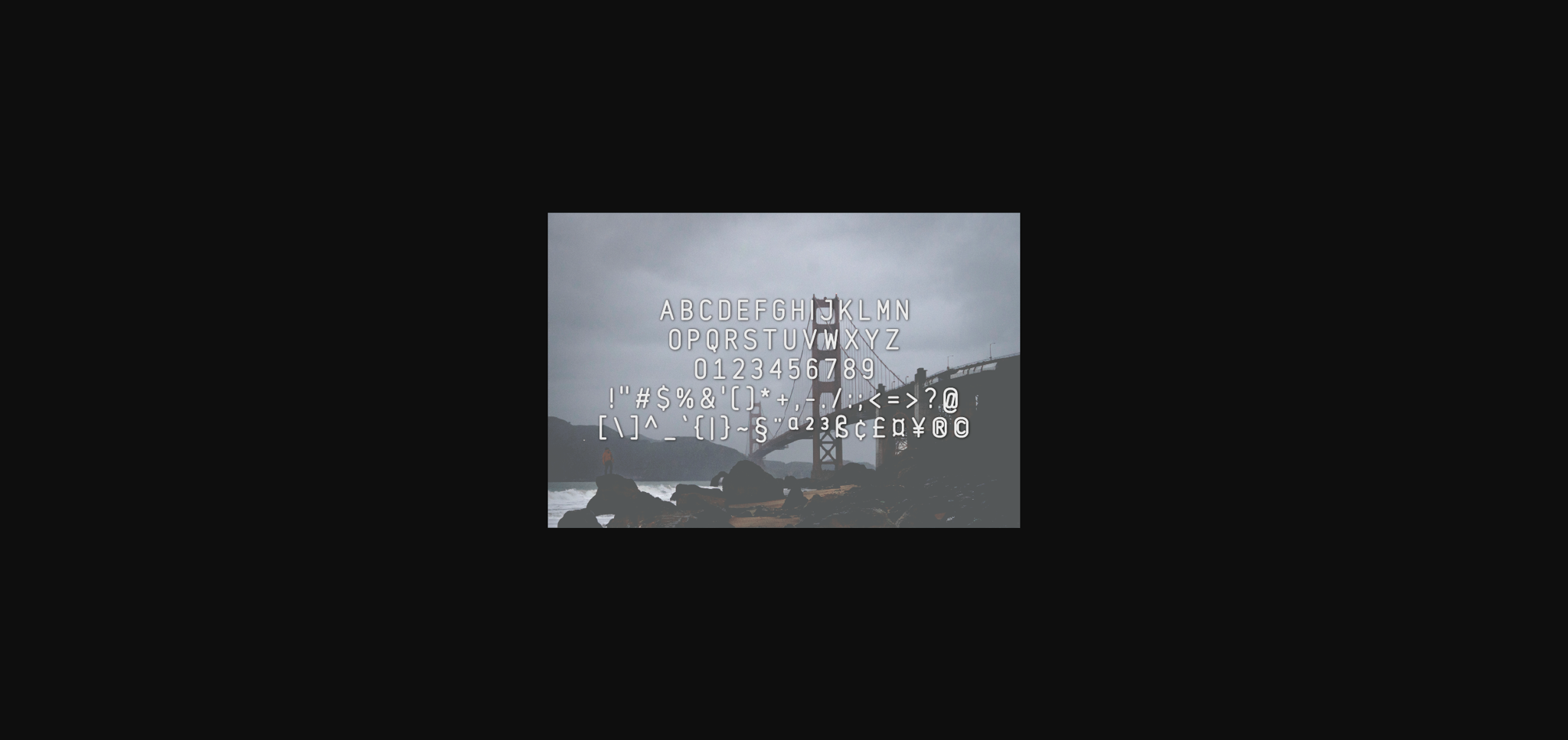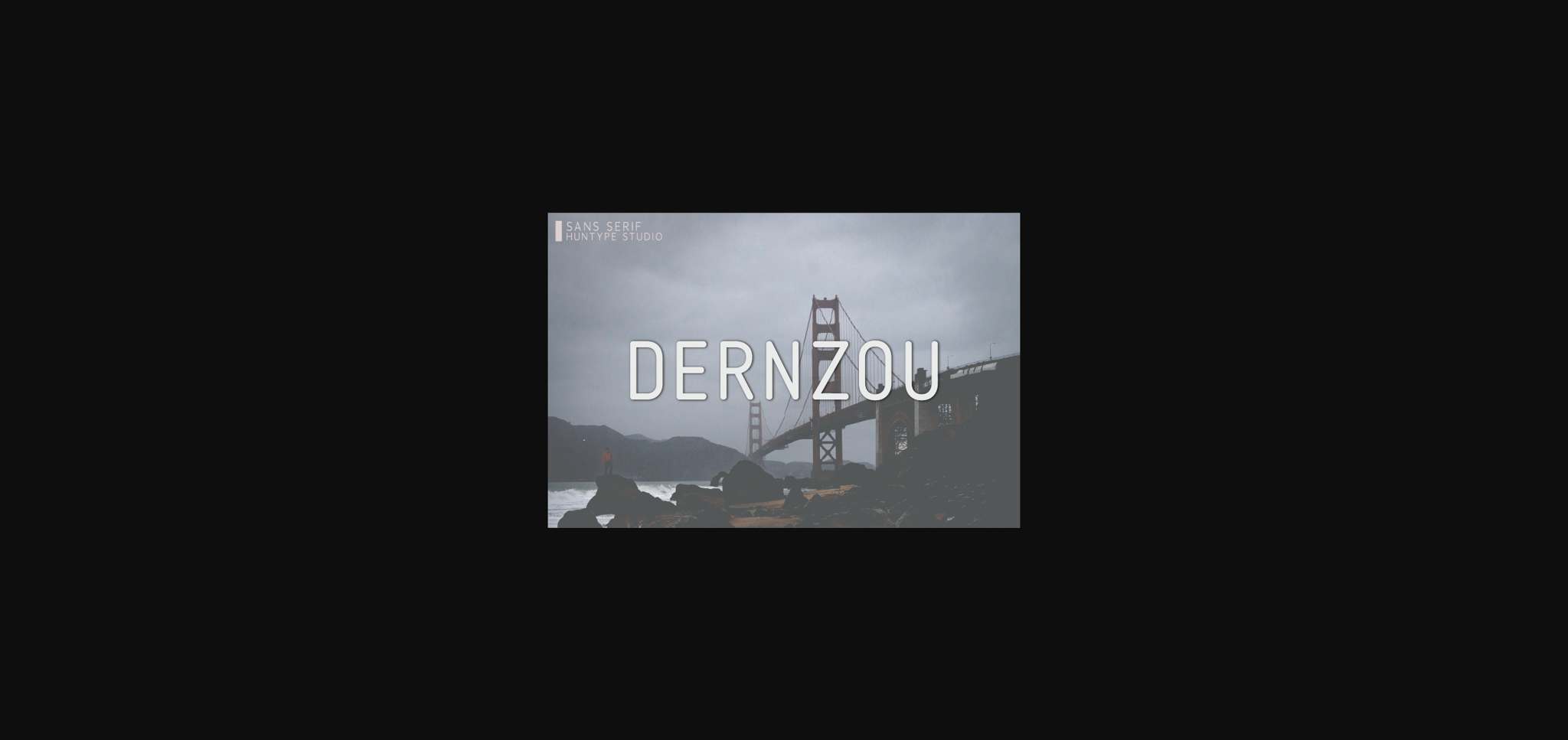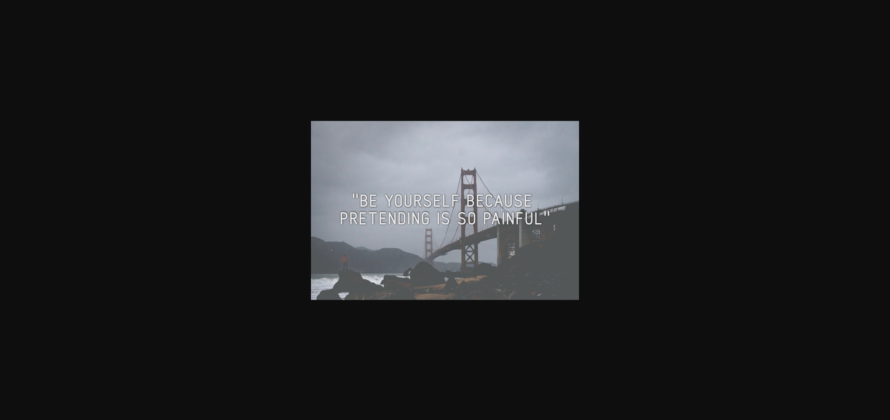
Dernzou Font
About Dernzou Font
Dernzou is a modern and clean sans serif font that is versatile and looks great in just about any context. With smooth and clean lines, and just a touch of contrast, Dernzou works beautifully for logos, branding, web headings and much more.